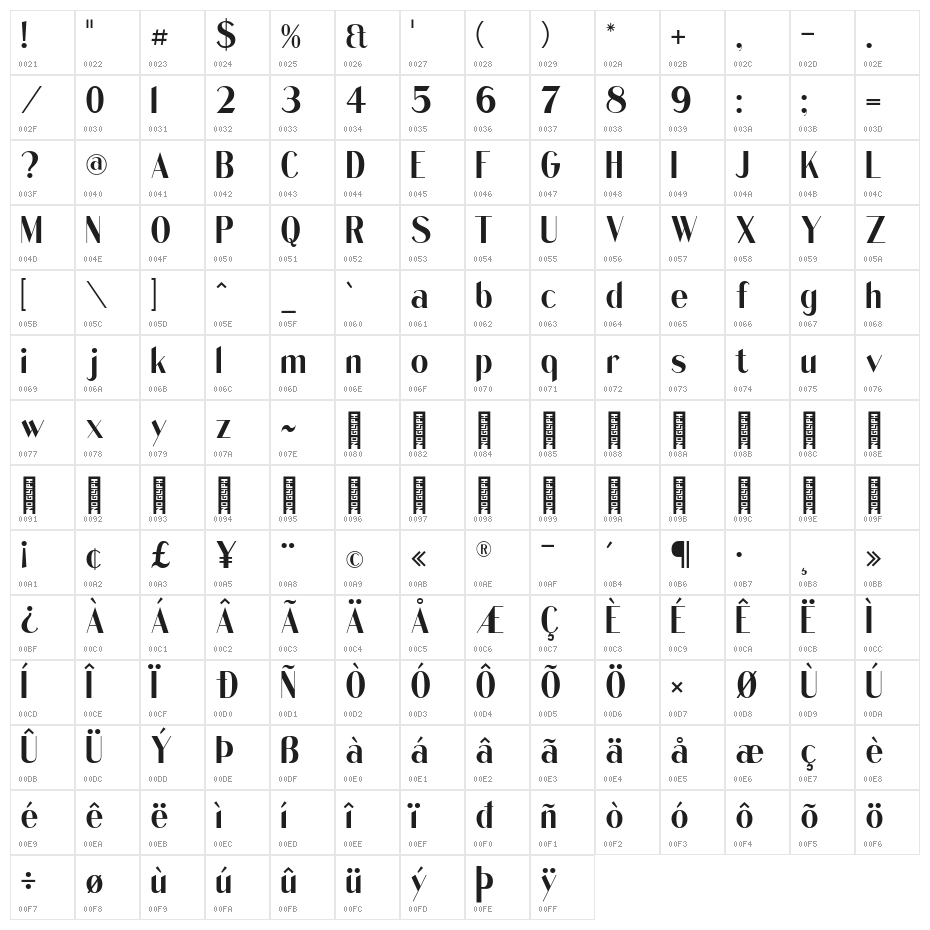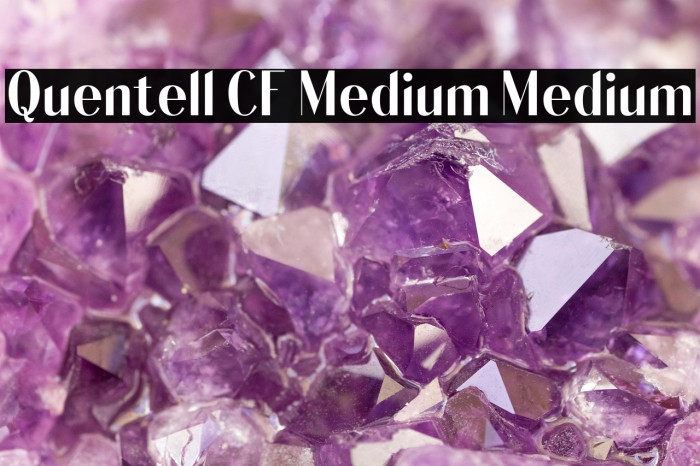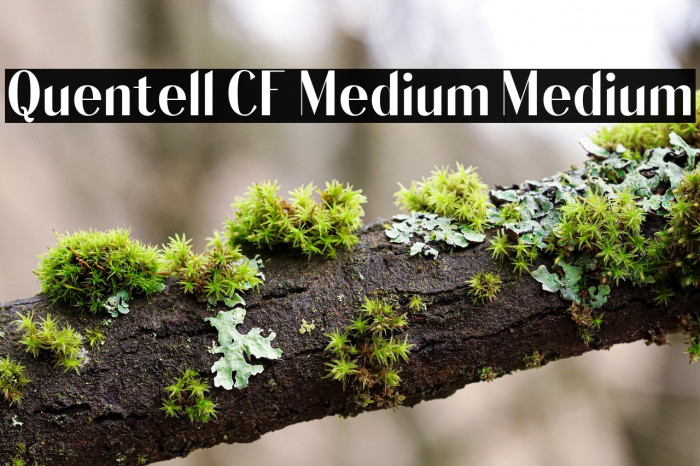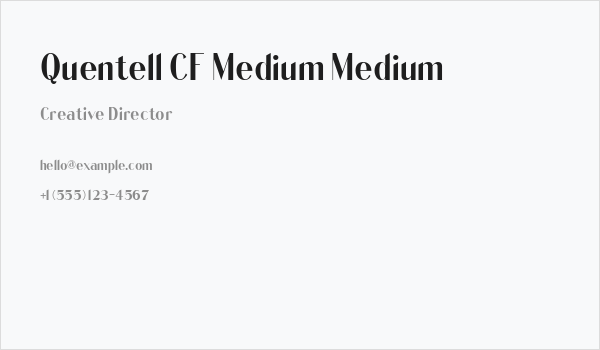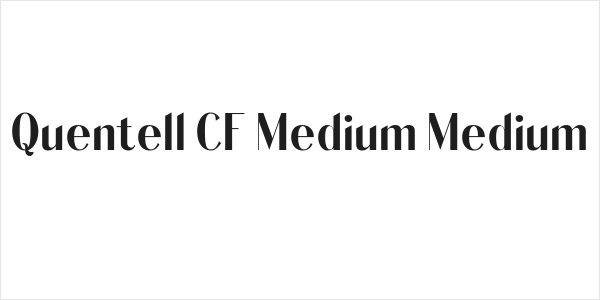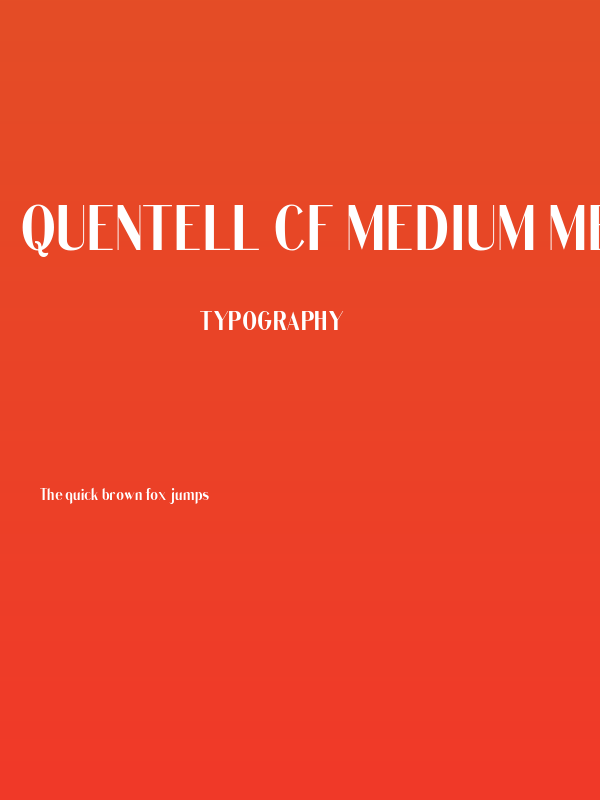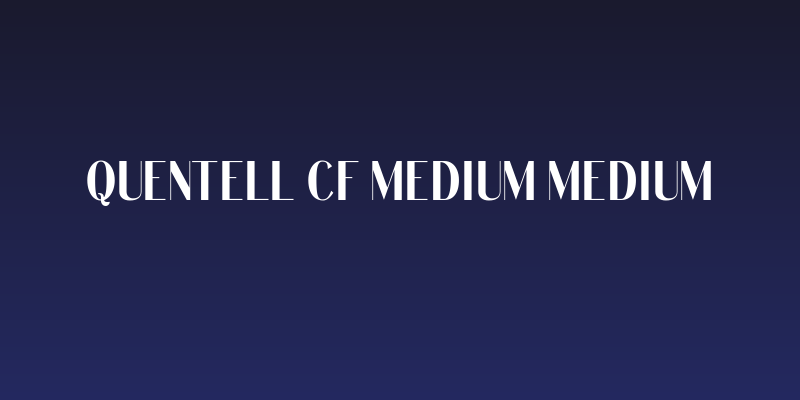
Quentell CF Medium Medium Font
This font features a striking blend of modern and classic elements, characterized by its high contrast between thick and thin strokes. The uppercase letters exhibit a strong presence with their tall, elegant forms, while the lowercase letters maintain a harmonious balance with slightly rounded edges. The numerals are bold and clear, ensuring readability. Special characters are thoughtfully designed, adding to the font's versatility. Overall, this typeface exudes sophistication and is well-suited for a variety of design applications.
| Use Case | Headlines, Logos, Editorial design |
| Proposed Projects | Ideal for branding, editorial design, advertising, and luxury product packaging. |